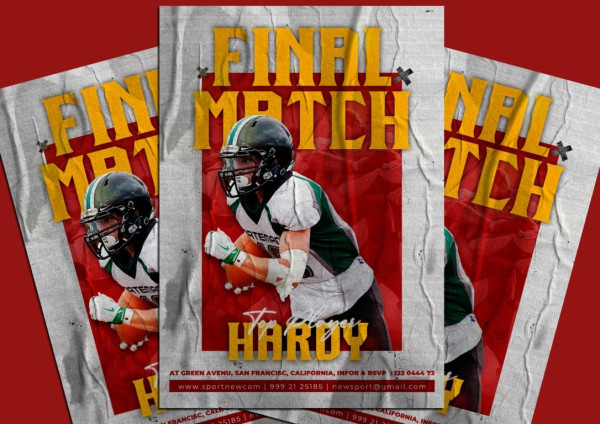
Burnspace Display Font
Burnspace Display Font, an urban sans serif font. This typeface exudes streetwear vibes, hip-hop energy, and captures the essence of youth and urban culture. It is the perfect choice for creating striking posters, magazine layouts, brand logos, sleeve covers, party flyers, quotes, or even as a stylish text overlay on any background image. Embrace the edgy appeal of Burnspace Display Font as it adds a touch of urban flair and contemporary style to your designs. Let this font elevate your creations and make a bold statement that resonates with the spirit of the streets.